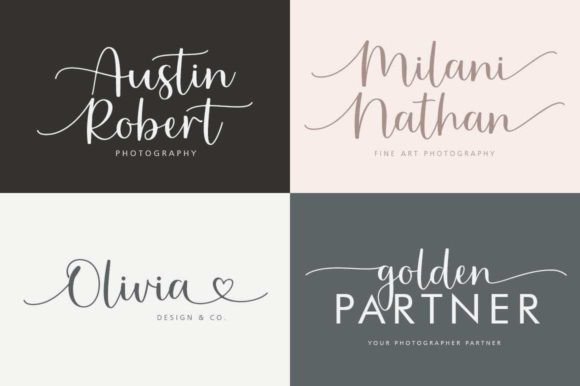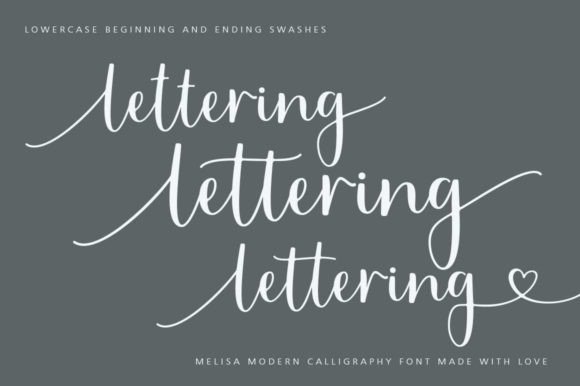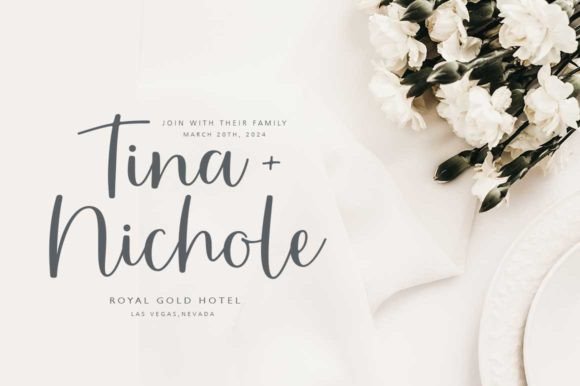
Melisa Font
Introducing the latest modern calligraphy font, Melisa which features a starting and ending swashes. Melisa Script has some beautiful ligatures for your pretty designs. Melisa Script is perfect for wedding stationery, feminine logos, branding and more!